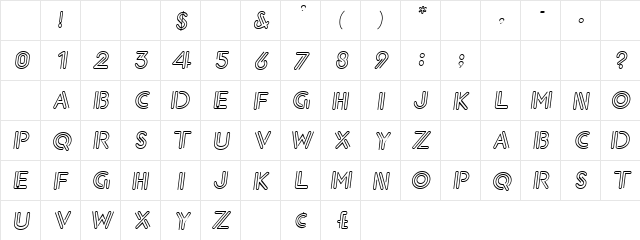
Picaro is a composed and adaptable typeface that performs quietly and consistently across a wide range of design contexts. The slanted form adds forward momentum and visual energy.